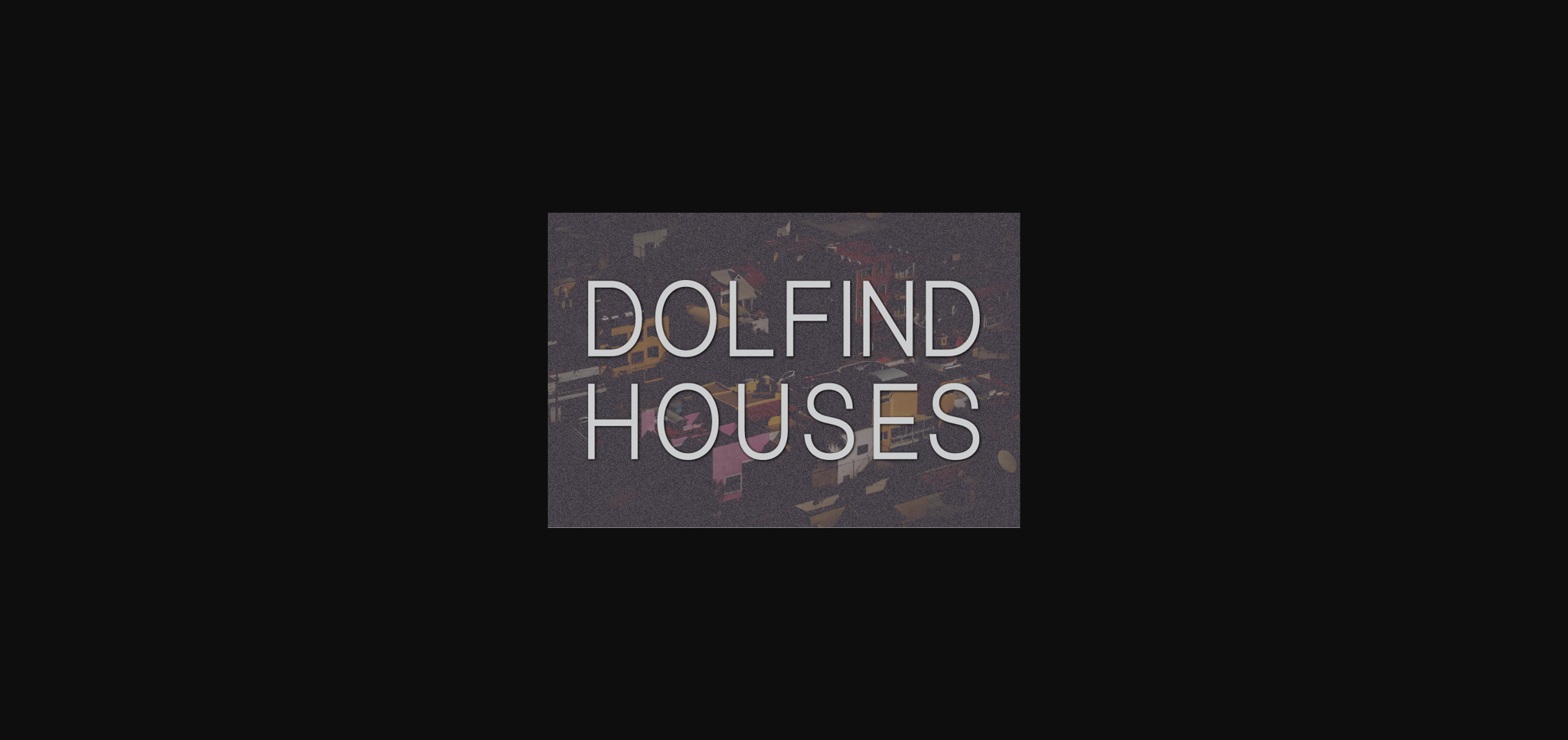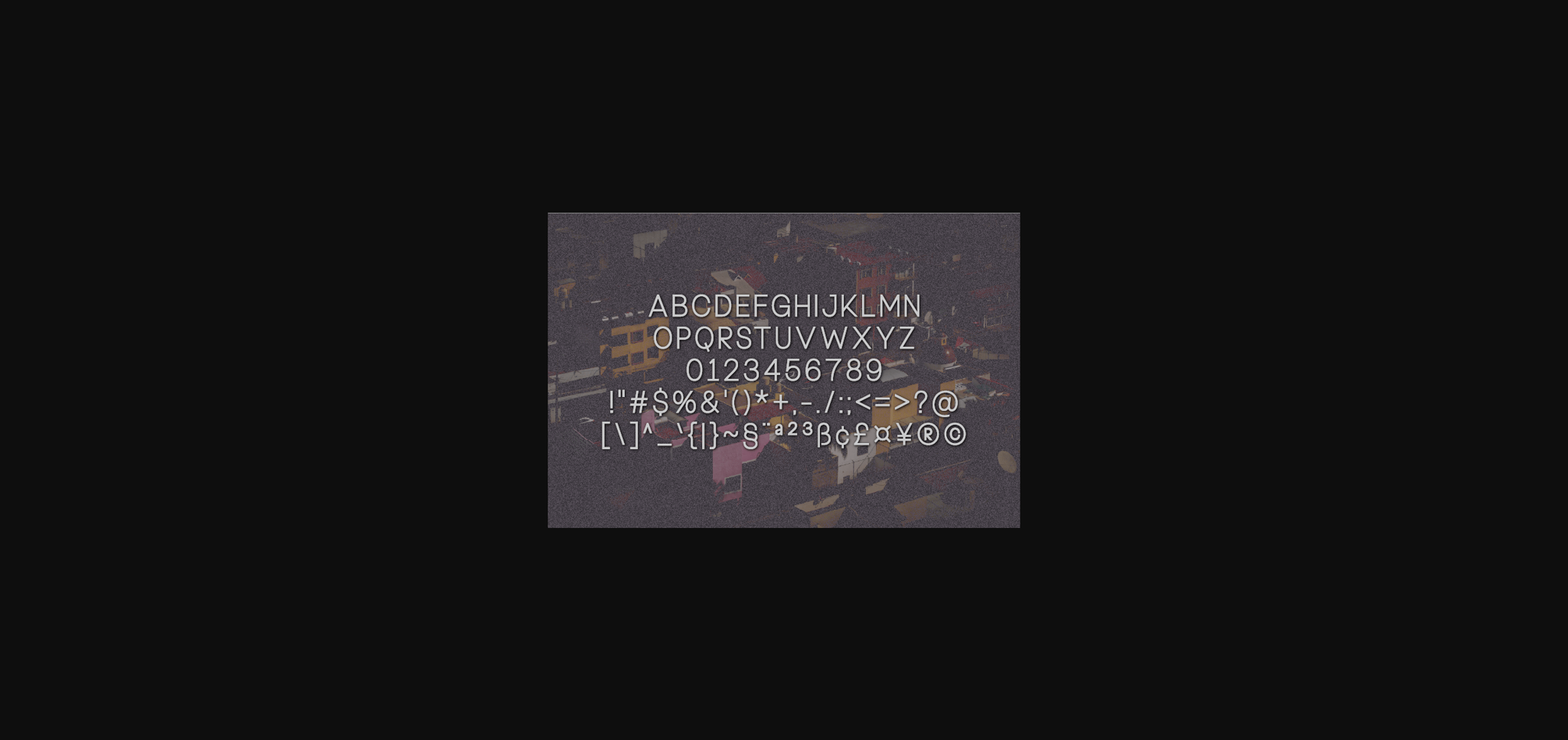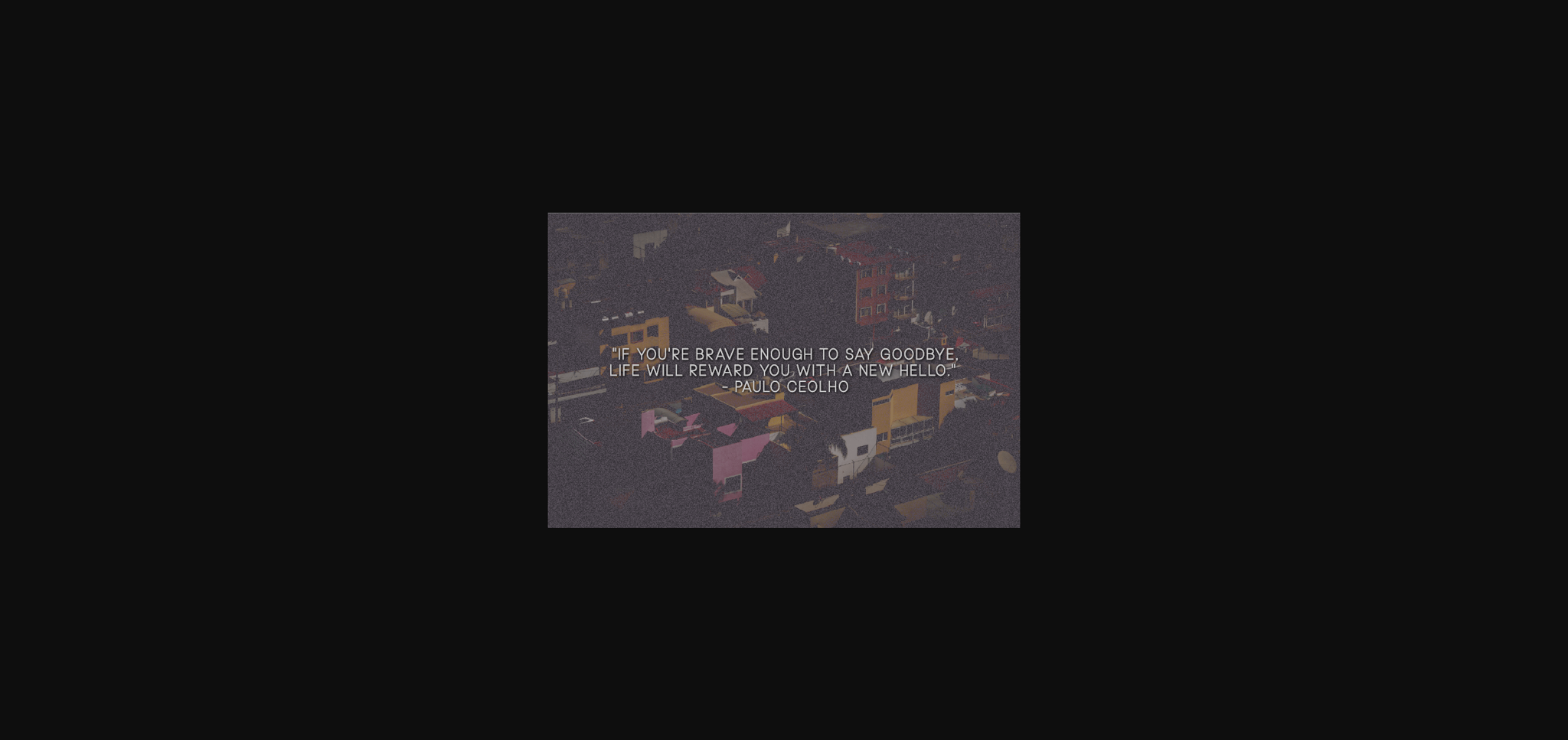
About Dolfind Houses Font
Dolfind Houses is a stunning sans serif to complement every project you’re working on.
Use it to create beautiful headings, gorgeous invitations, stunning logos, and so much more!! Perfect for displays, headers, invitations, save-the-dates, weddings, and so much more!